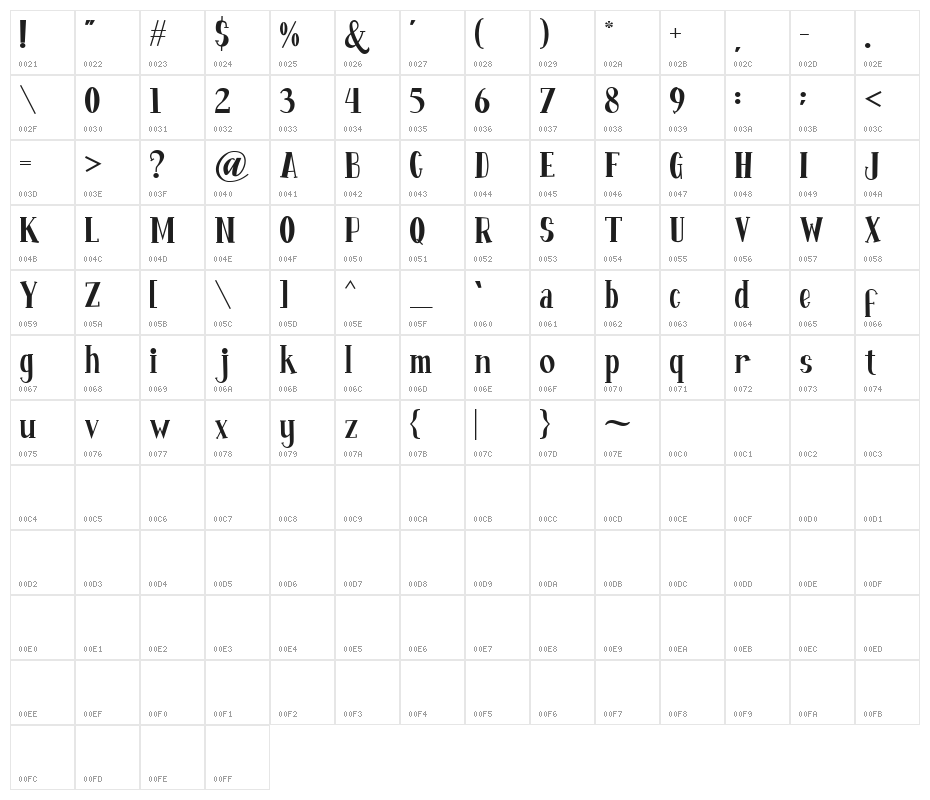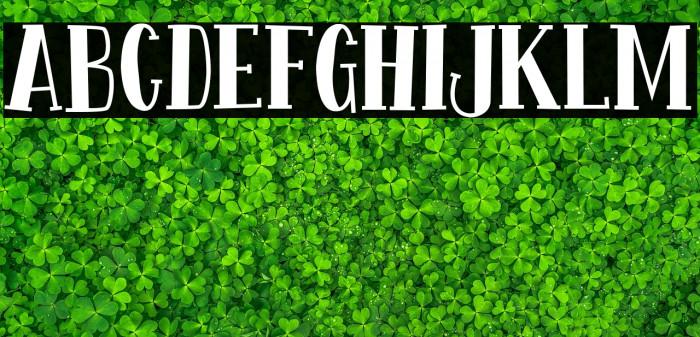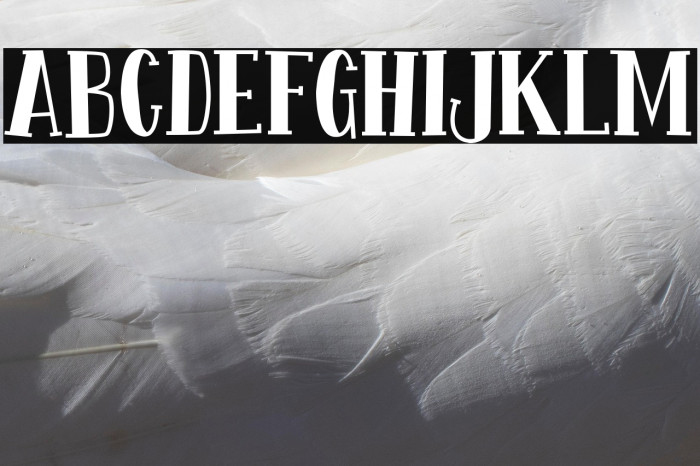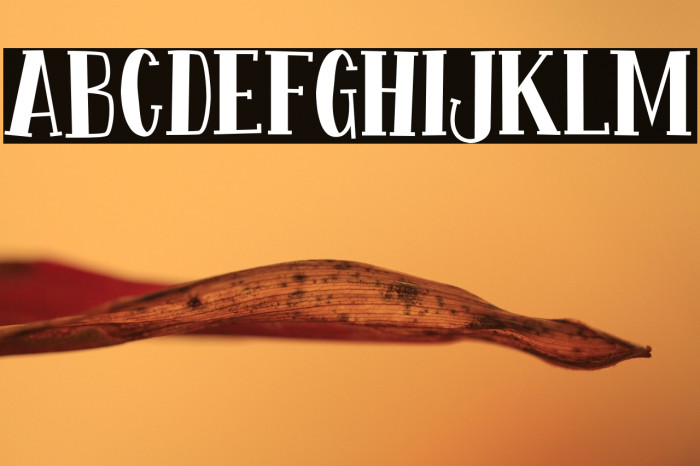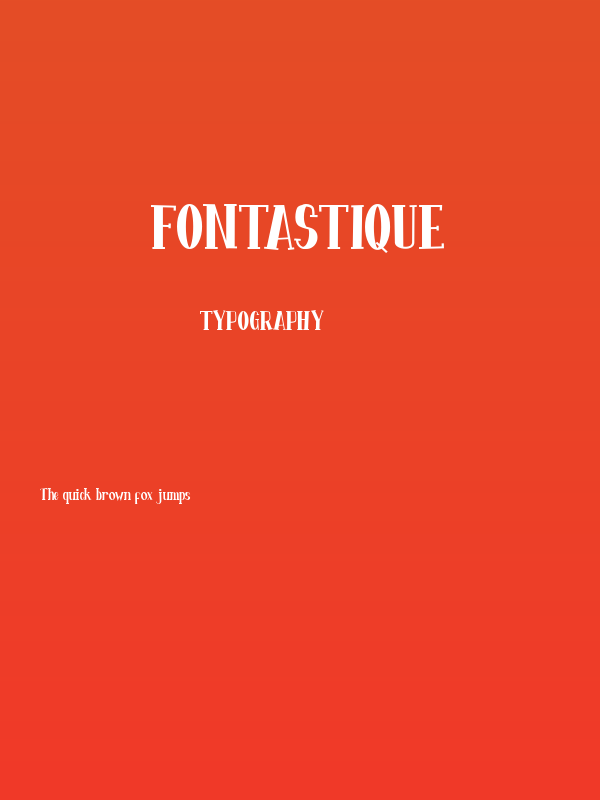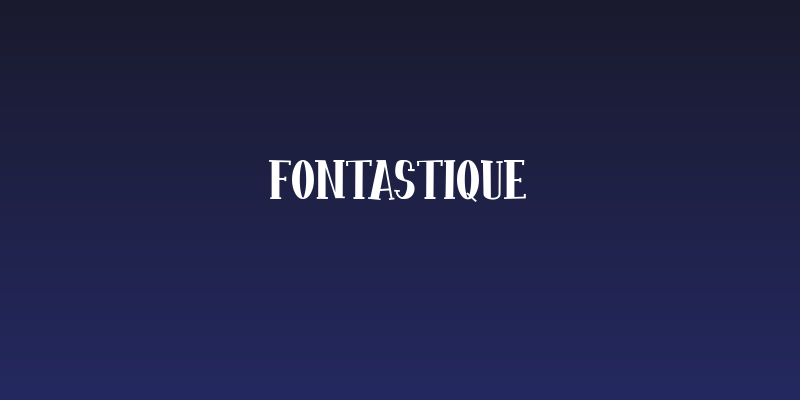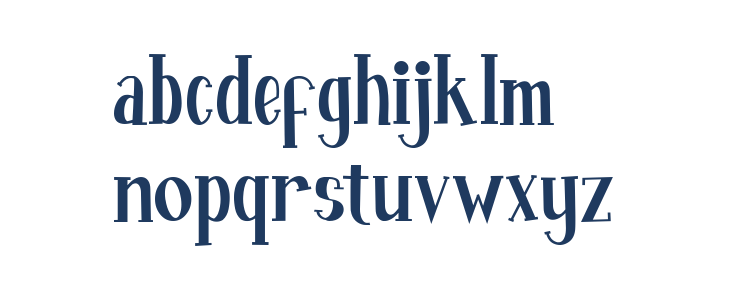
Fontastique Font
Fontastique Description
This font features a playful and decorative style with a unique blend of bold and slender strokes. The uppercase letters have a whimsical flair, with varying stroke widths that add a dynamic and lively appearance. The lowercase letters maintain a consistent style, complementing the uppercase with their own quirky curves and angles. Numbers are bold and distinct, ensuring readability while maintaining the font's overall playful character. Special characters are creatively designed, adding to the font's decorative appeal. This font is ideal for projects that require a fun and engaging look.
| Proposed Projects | Ideal for children's books, playful branding, event invitations, and creative posters. |